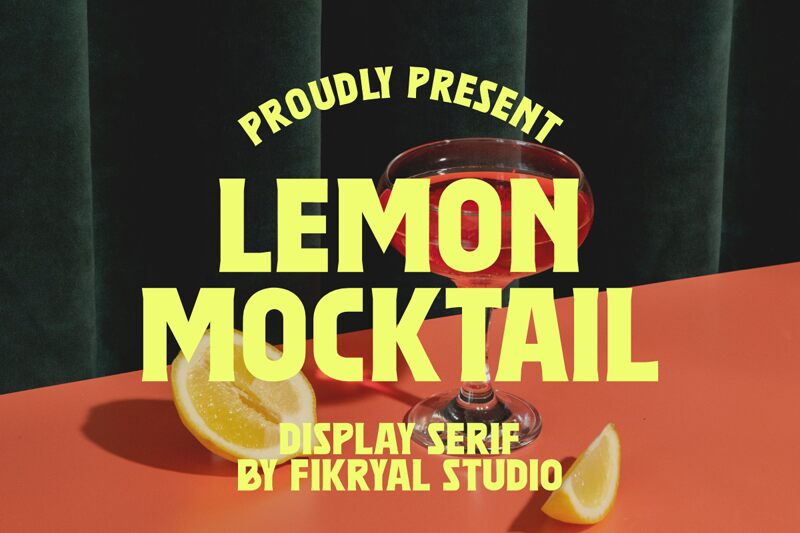
Lemon Mocktail by Fikryal Studio is a bold display font that exudes a zestful retro vibe. Its condensed letters pack a punch, capturing the essence of vintage aesthetics with a modern twist. The thick strokes and tight spacing make it an eye-catching choice for designers looking to infuse their work with personality and flair.
This font finds its stride in contexts that call for attention-grabbing headlines or where a touch of nostalgia is desired. Ideal for poster designs, branding projects, and any visual medium that benefits from a strong typographic presence, Lemon Mocktail stands out in both print and digital realms. It's particularly well-suited for themed events, restaurant menus, or any creative endeavor aiming to evoke the spirited charm of yesteryears.